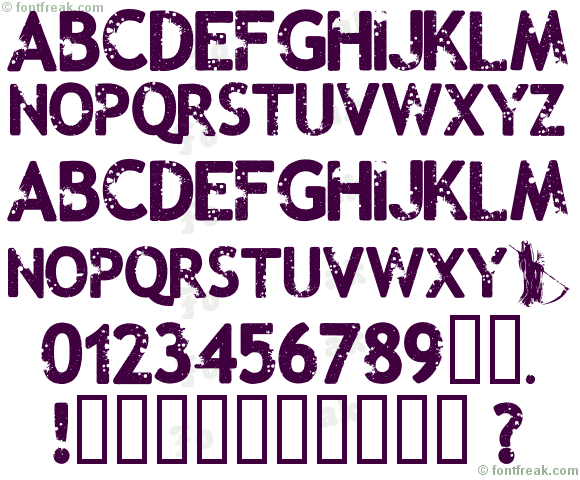
Malevolent z
The Malevolent z font, designed by Chris Vile, is a striking display typeface characterized by its bold, rugged aesthetic. This font falls into the decorative category, making it an excellent choice for projects that require a unique and impactful visual statement. The design features a heavy stroke weight with a distressed texture, giving it a raw, edgy feel that can evoke a sense of drama and intensity. The contrast between thick and thin lines adds to its dynamic appearance, while the irregular spacing contributes to its unconventional charm.
Best suited for projects like movie posters, band logos, and Halloween-themed invitations, the Malevolent z font can elevate your design with its distinctive personality. It also works well for social media graphics, where grabbing attention is essential, and can be utilized in promotional materials for events or products that cater to a younger, more adventurous audience. Graphic designers, content creators, and small business owners will find this font particularly useful for crafting memorable branding elements that stand out in a crowded marketplace.